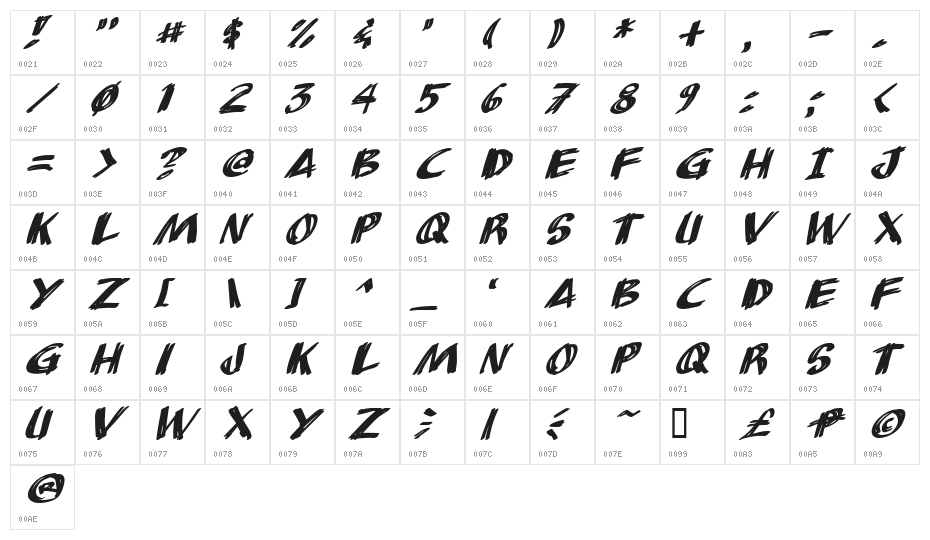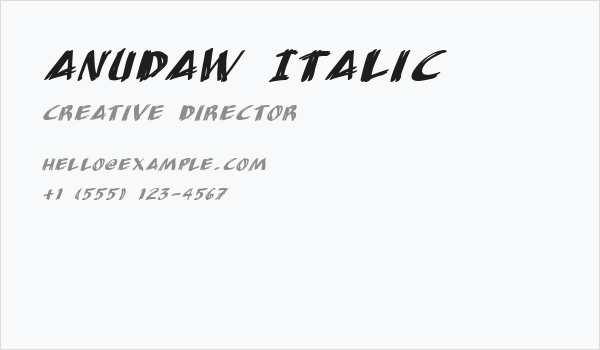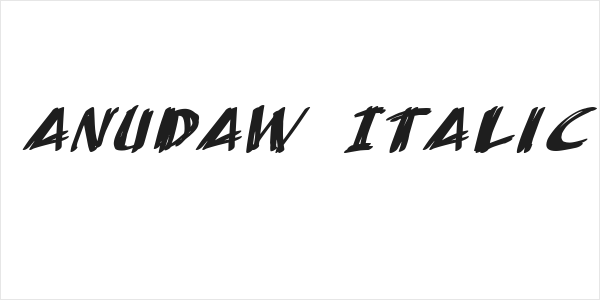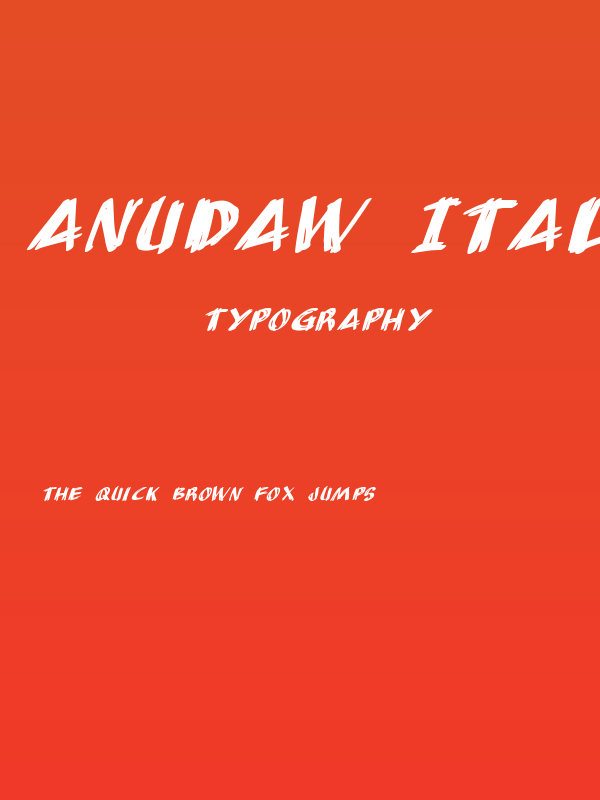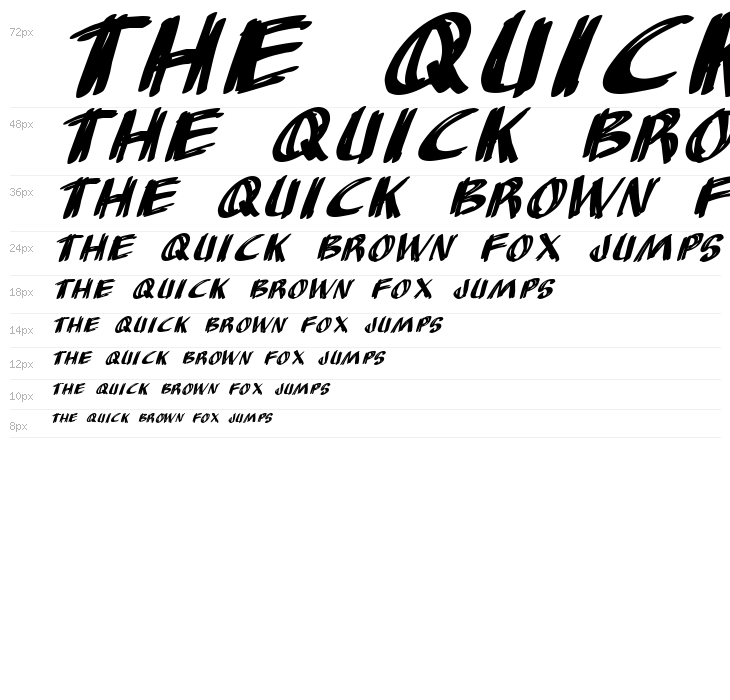
AnuDaw Italic Font
AnuDaw Italic Description
This font features a bold and dynamic brush script style, characterized by its energetic strokes and italicized slant. The letters have a hand-painted appearance, with varying thickness that adds a sense of movement and fluidity. The uppercase and lowercase letters maintain a consistent style, with exaggerated curves and sharp edges that create a striking visual impact. The numerals and special characters are equally expressive, complementing the overall aesthetic. This font's unique style makes it ideal for projects that require a bold and artistic touch.